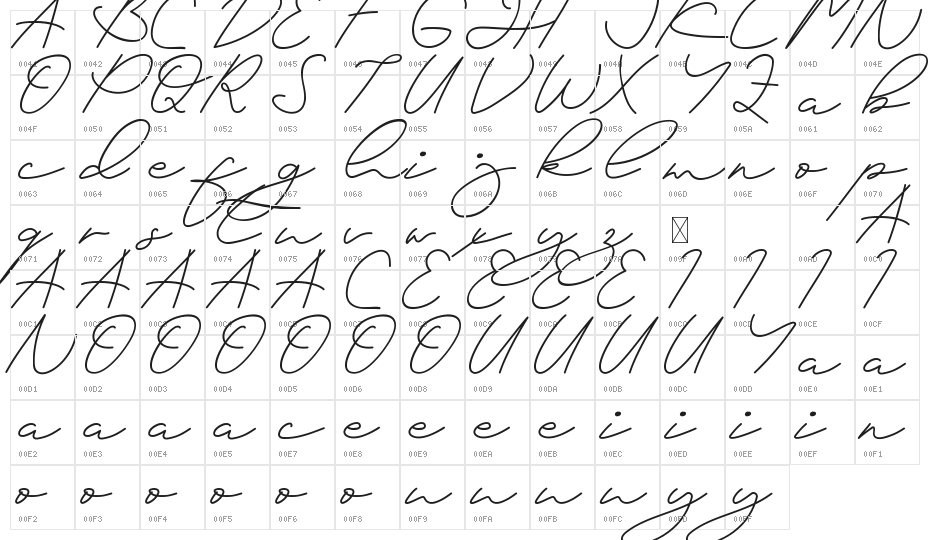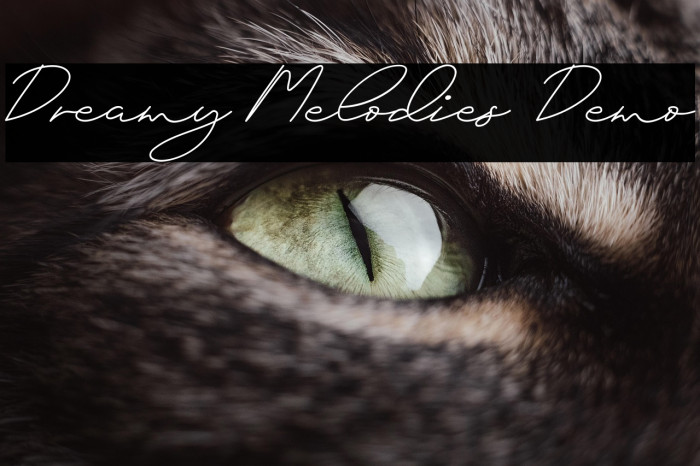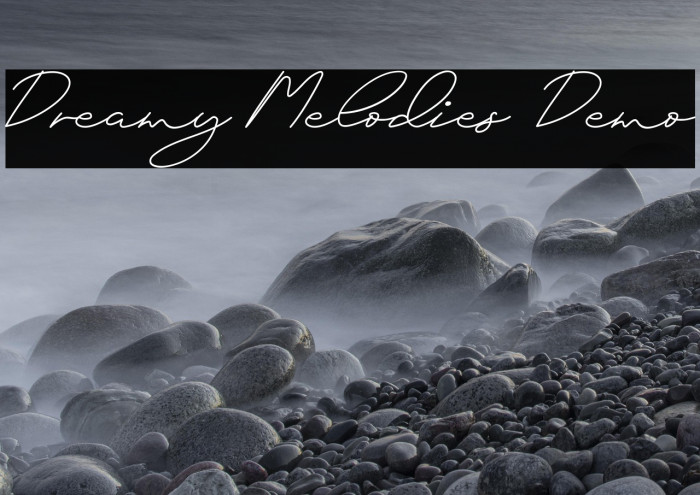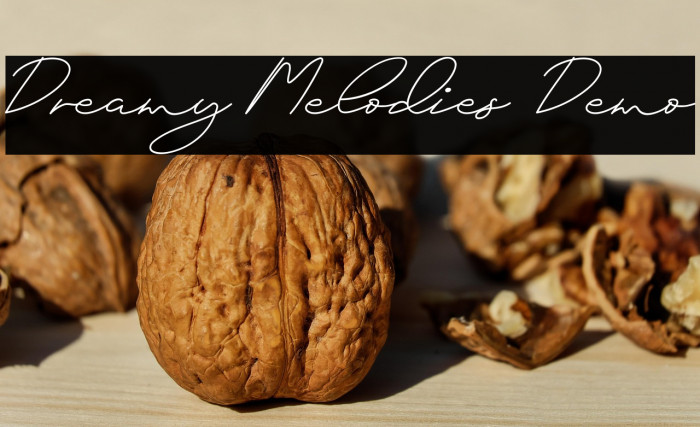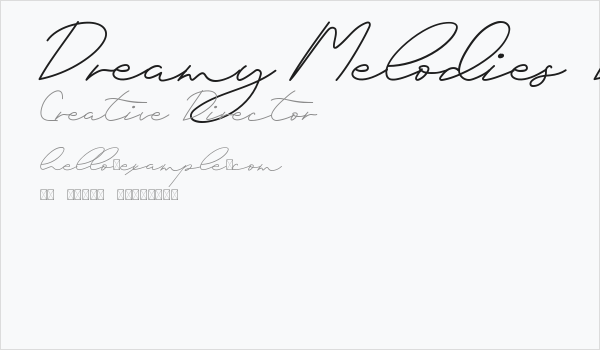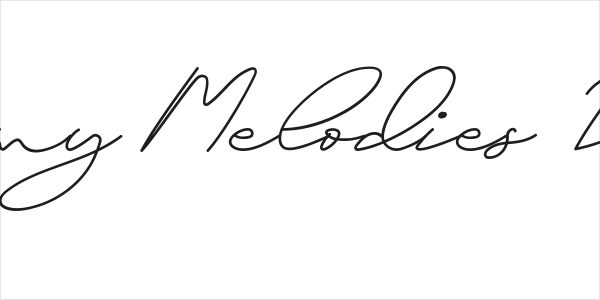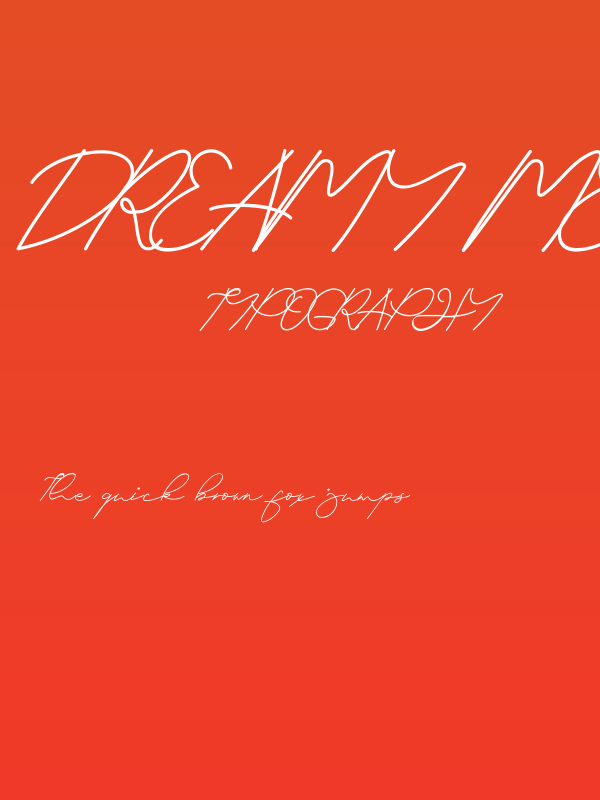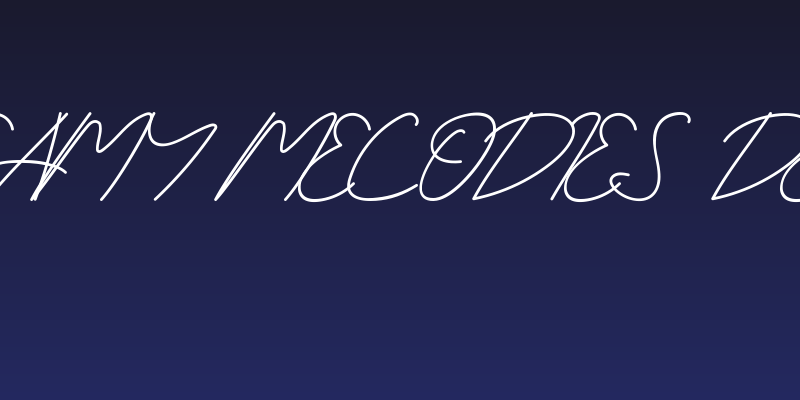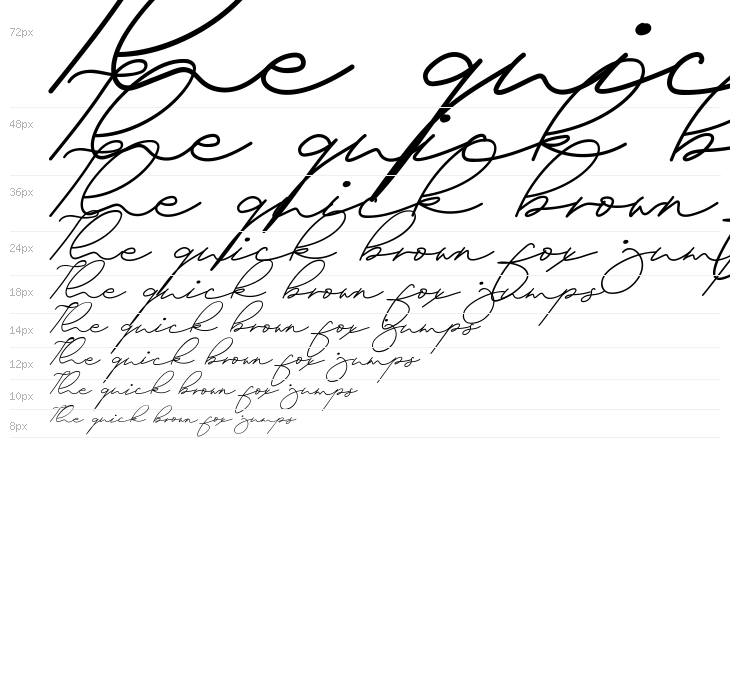
Dreamy Melodies Demo Font
Dreamy Melodies Demo Description
This font exudes elegance and fluidity, characterized by its cursive, handwritten style. The letters are interconnected with smooth, flowing lines that mimic natural handwriting. The uppercase letters are slightly more elaborate, with extended loops and swirls, while the lowercase letters maintain a consistent, graceful flow. The overall appearance is delicate and sophisticated, making it ideal for projects that require a personal touch. The font's thin strokes and high contrast add to its refined and airy feel.
| Use Case | Invitations, Branding, Personal Correspondence |
| Proposed Projects | Ideal for wedding invitations, personal letters, branding for luxury products, and elegant event posters. |